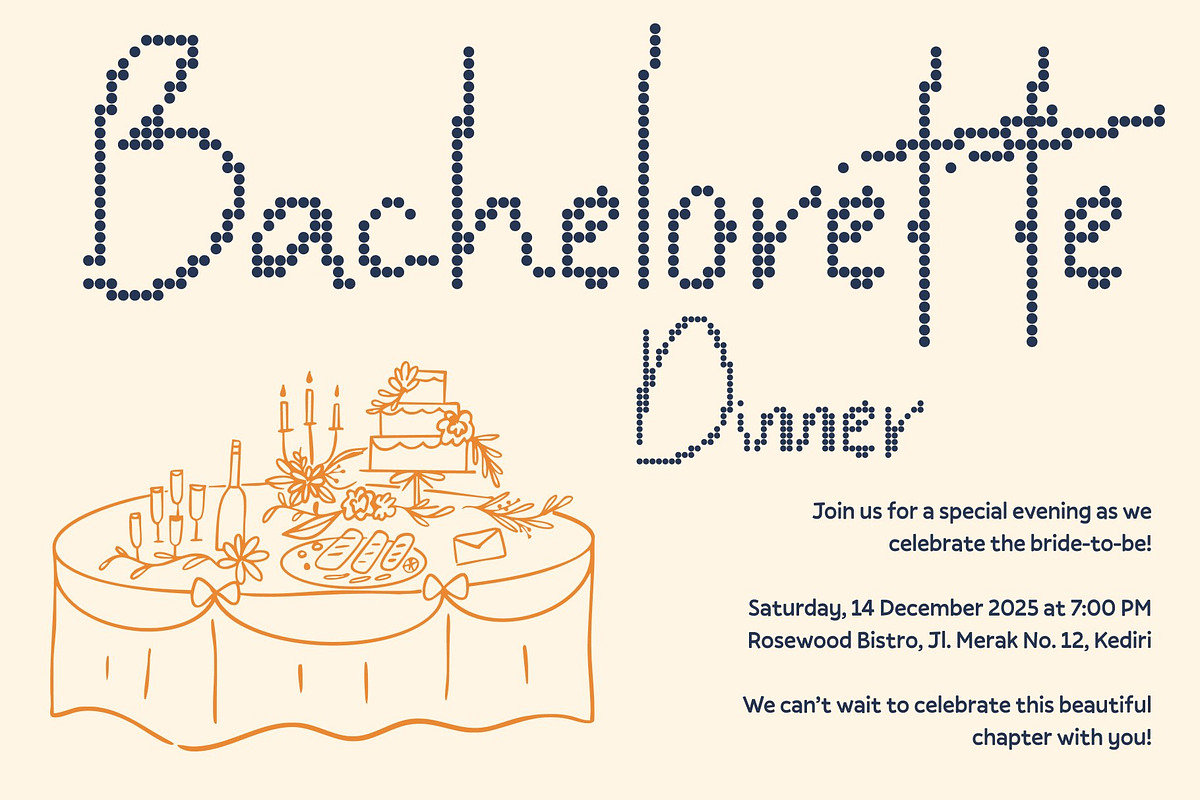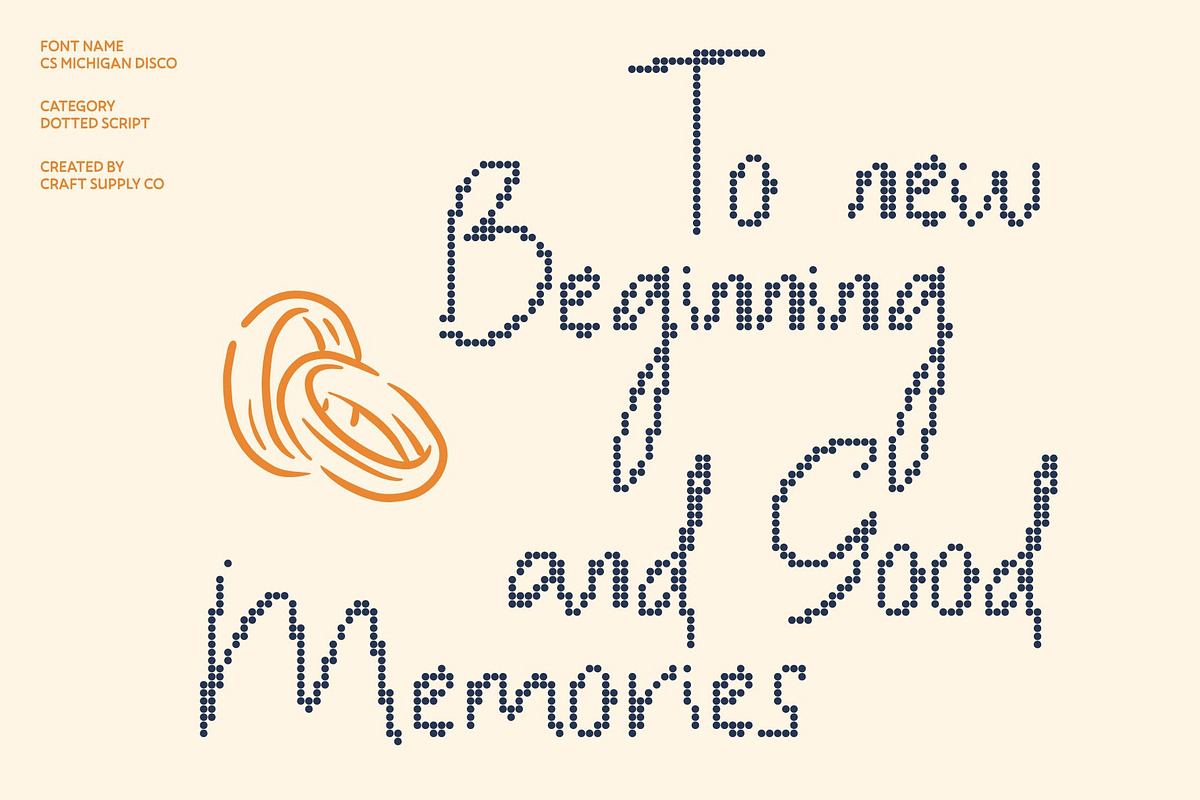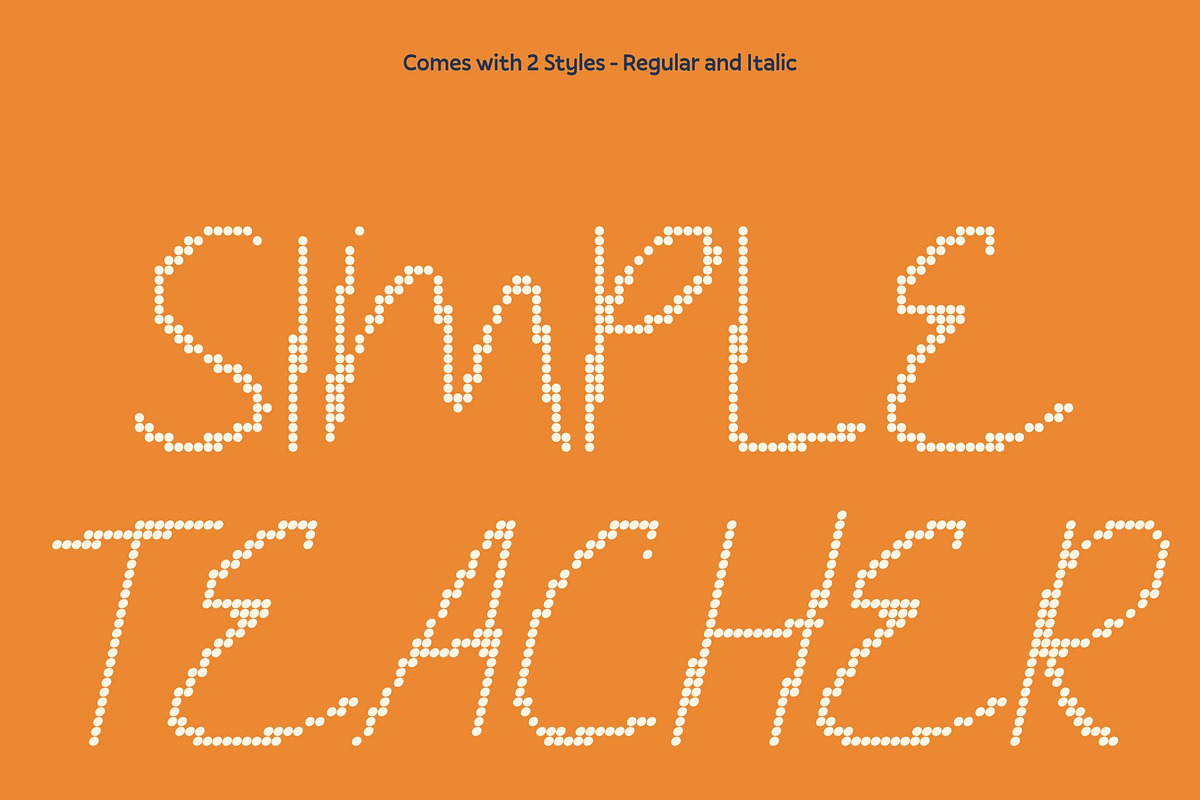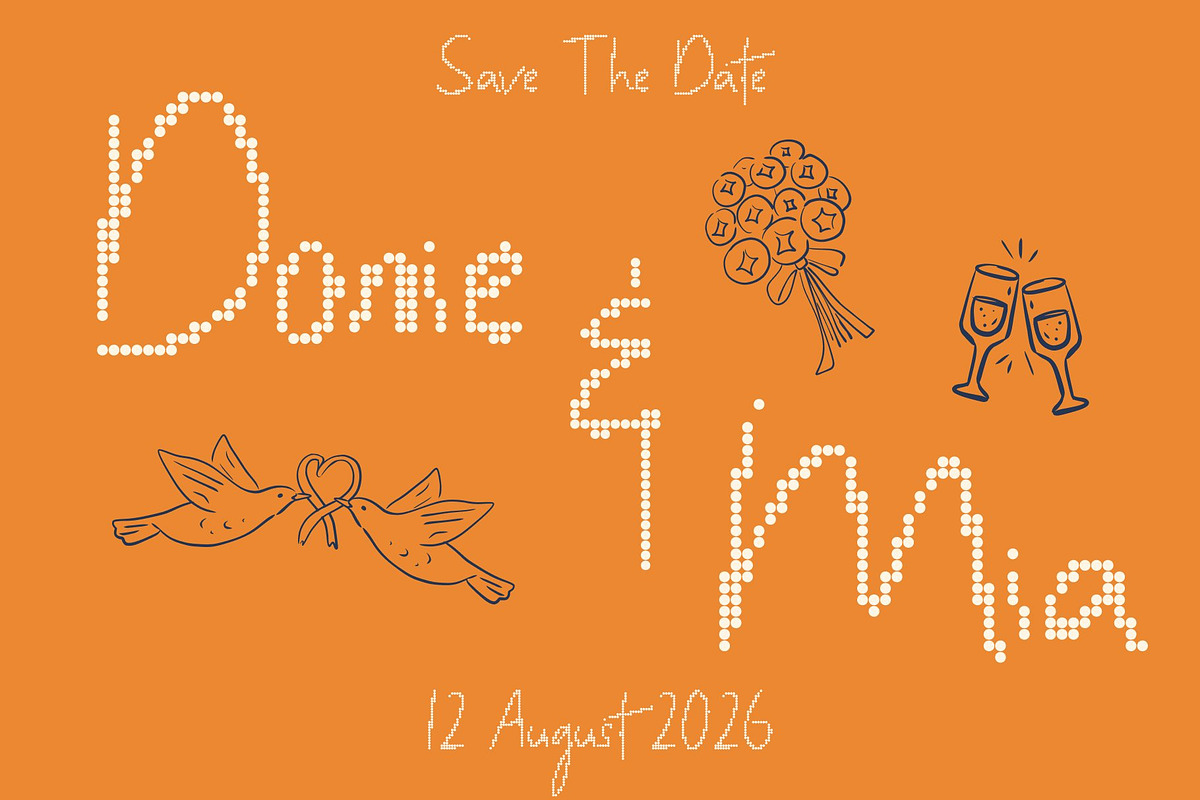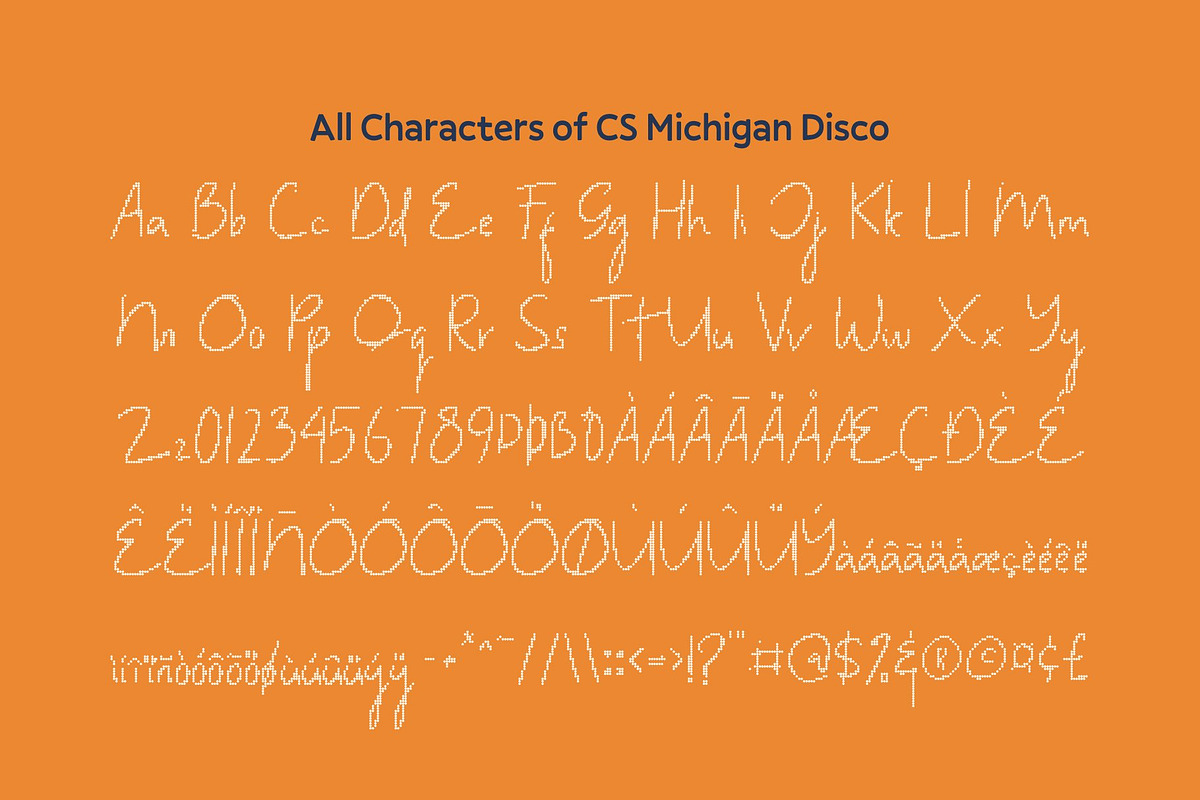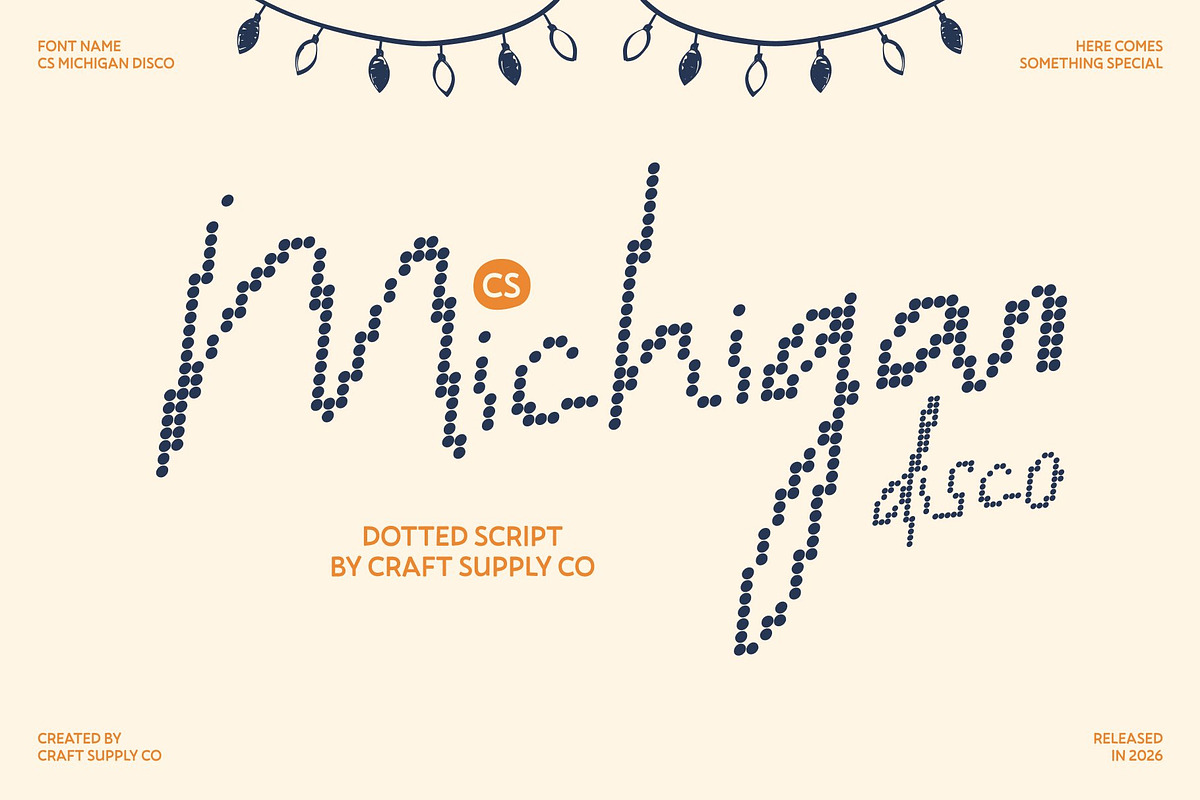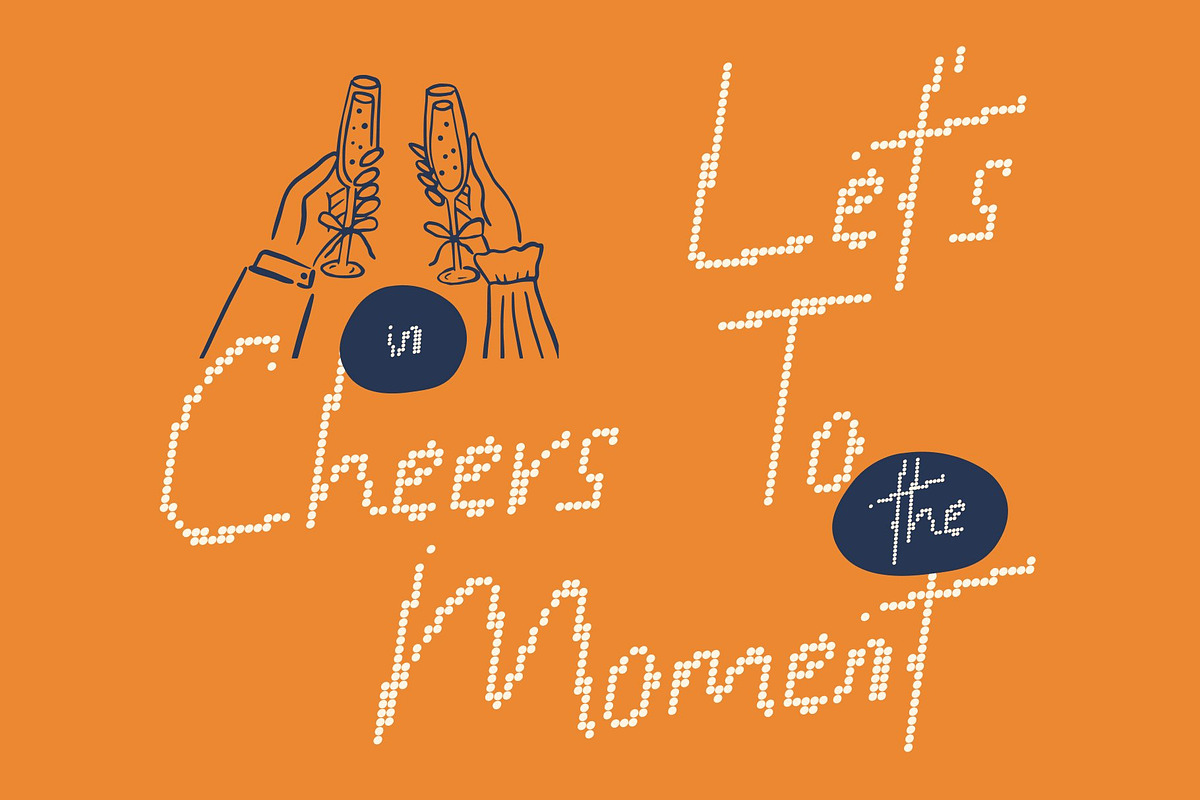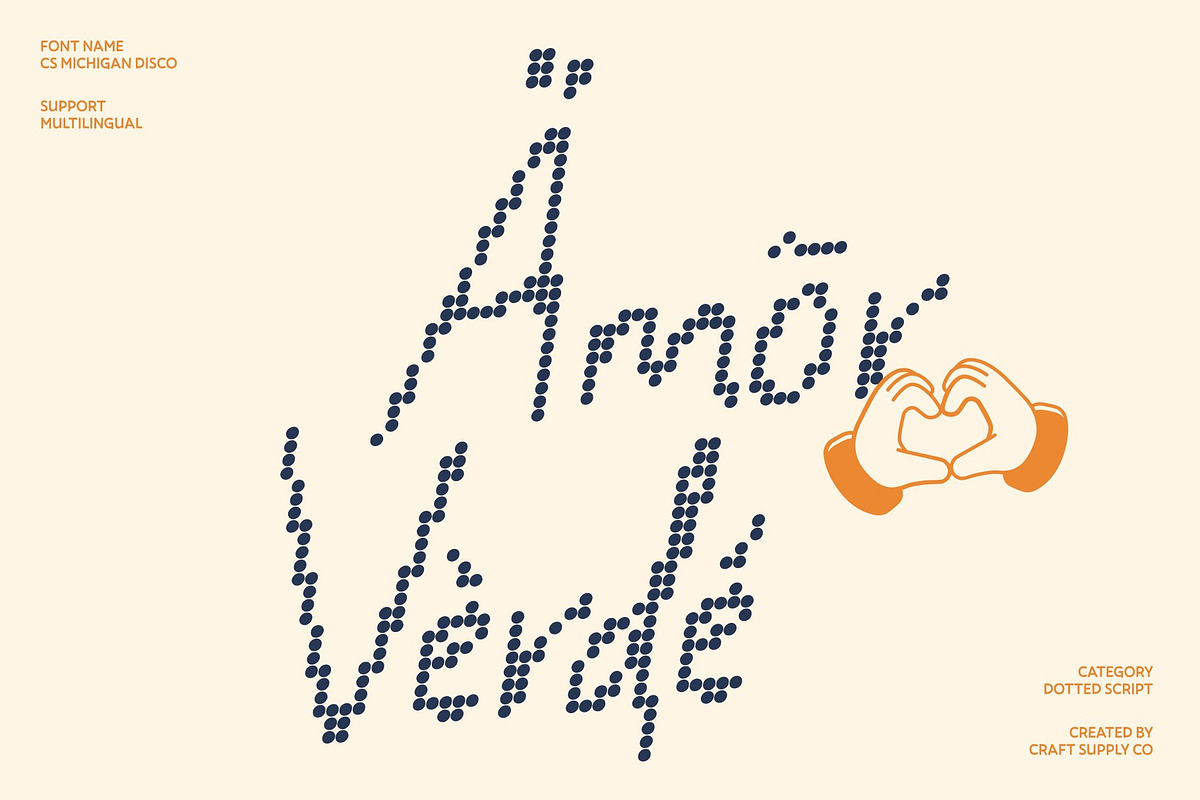
CS Michigan Disco
CS Michigan Disco – Friendly Handwriting with Disco Spark
Casual Handwriting with Party Energy This takes the approachable charm of its casual handwritten style and infuses it with disco-inspired energy. Each letter retains its natural, flowing strokes but is now adorned with playful dot or sparkle accents that evoke lights on a dance floor. The font radiates warmth, cheer, and a lively personality perfect for festive designs.
Organic Flow with Energetic Vibe The handcrafted forms preserve the authenticity of natural handwriting, while subtle disco details like dotted textures or glittering highlights bring movement and excitement. Every word feels animated, fun, and ready to groove, making your typography pop with joyful rhythm.
Cheerful and Inviting Character This font balances readability with playful expression. Rounded, flowing shapes keep it friendly and approachable, while the energetic disco touches create visual sparkle. This combination ensures the font is lively, youthful, and irresistibly charming.
Perfect for Vibrant and Fun Projects Ideal for party posters, kids’ events, social media graphics, playful branding, or cheerful editorial layouts. This font transforms ordinary handwriting into a festive, eye-catching style that captures energy, glamour, and a sense of celebration.
CS Michigan Disco Regular
CS Michigan Disco Italic